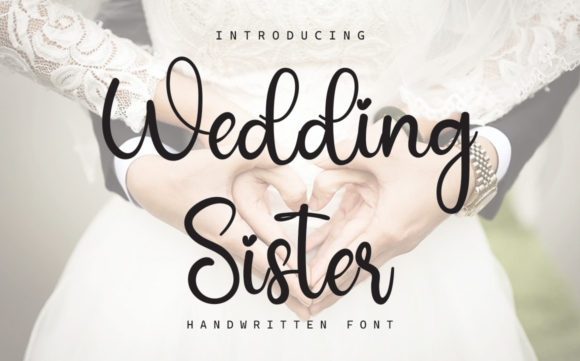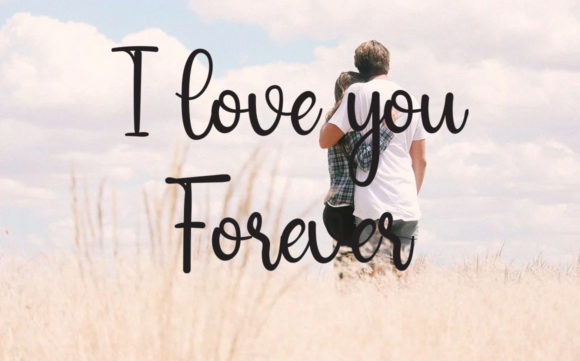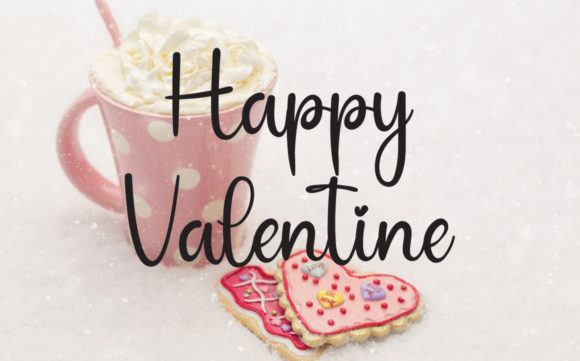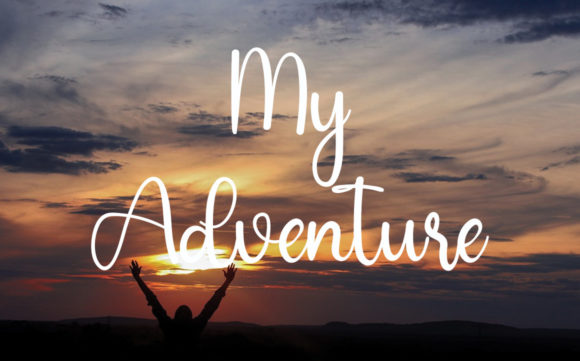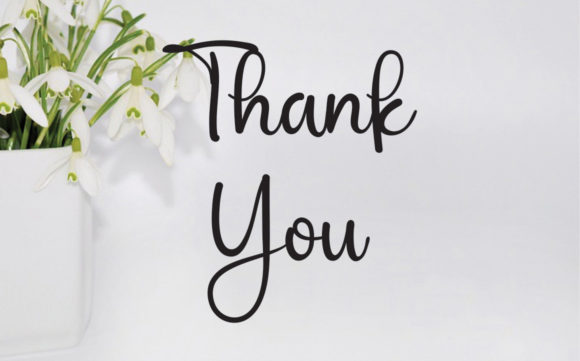
Wedding Sister Font
About Wedding Sister Font
“Wedding Sister” is a charming and flowing handwritten font that brings a sense of elegance and beauty to a variety of design projects. Its graceful and unique letterforms make it a versatile choice for enhancing the visual appeal of different applications.
The font’s flowing and delicate design makes it well-suited for creating captivating wall displays. Whether you’re designing artwork for a home, event space, or business, the artistic and elegant nature of “Wedding Sister” can add a touch of sophistication and creativity to your displays.
When it comes to weddings, “Wedding Sister” can be an excellent choice for crafting enchanting wedding invitations. Its romantic and flowing strokes set the tone for a memorable and romantic celebration. The font’s graceful curves and intricate details can add a sense of refinement to wedding stationery.
For branding purposes, “Wedding Sister” can be used to create social media post logos and advertisements that capture attention. Its unique and stylish typography can help your brand message stand out, conveying a sense of elegance and originality.
The font’s versatility extends to product packaging and design. Whether it’s labels, product packaging, or product designs, “Wedding Sister” can add a touch of charm and sophistication to the visual representation of your products. Its graceful lines and intricate details can make your products appear more appealing.
In photography and watermarking, “Wedding Sister” can be employed to create elegant and distinctive watermarks, adding a personalized touch to your photos while maintaining their visual integrity.
To sum it up, “Wedding Sister” is a beautiful and flowing handwritten font that exudes elegance and charm. Its versatility allows it to be used in a range of applications such as wall displays, wedding invitations, branding, product packaging, photography, and more. With its ability to convey impressive typography, “Wedding Sister” can enhance the aesthetic appeal of any project that requires captivating design elements.